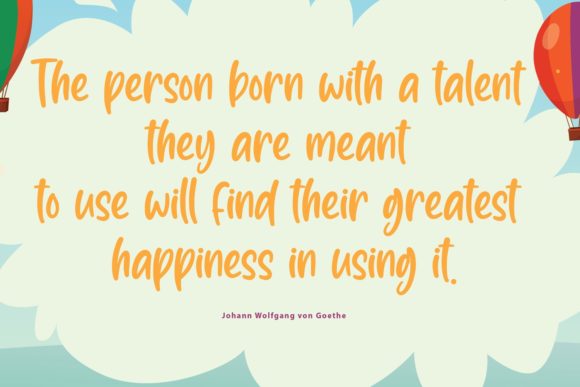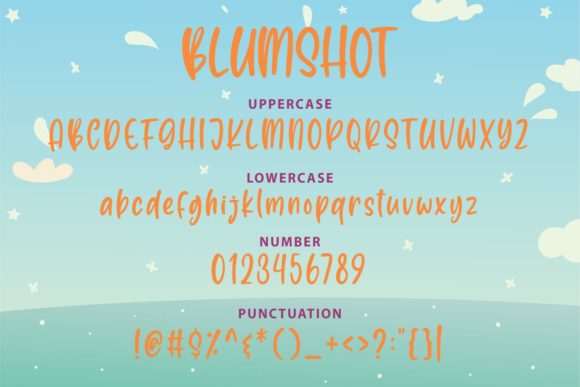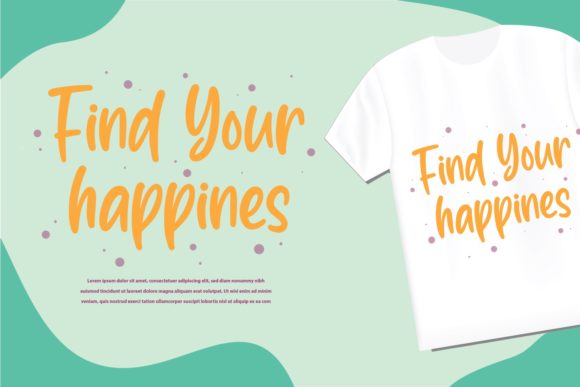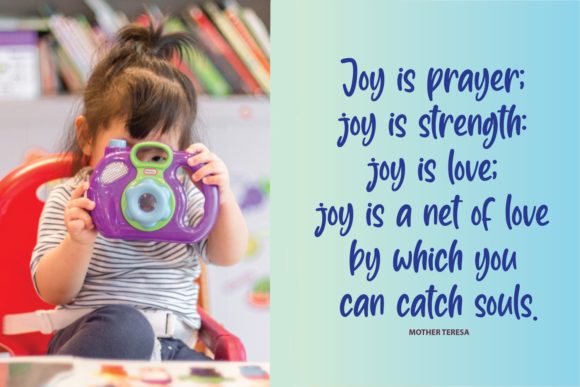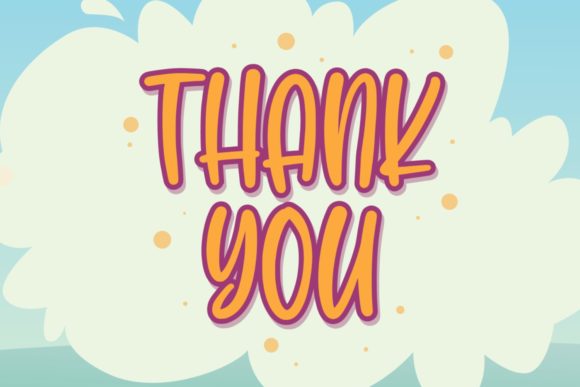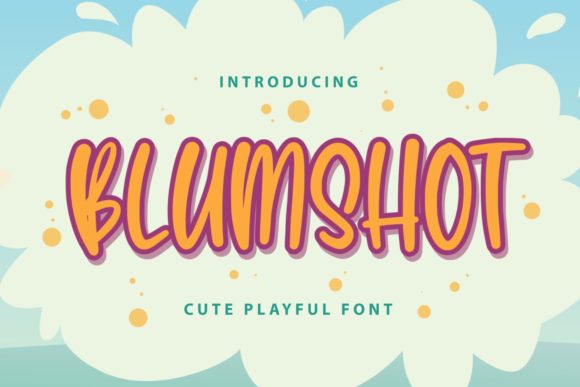
Introducing Blumshot Font: The Ultimate Friendly Handwritten Font
Are you tired of using the same old fonts for your designs? Look no further! Blumshot Font is here to revolutionize your creative projects with its incredibly friendly and casual handwritten style. This adorable font is perfect for designers, crafters, and anyone looking to add a personal touch to their work.
What Makes Blumshot Font So Special?
Blumshot Font boasts a unique and charming handwritten style that exudes warmth and friendliness. Its casual and approachable feel makes it an ideal choice for a wide range of projects, from logos and branding to social media graphics, invitations, quotes, and more. Whether you’re a professional designer or a crafty DIY enthusiast, Blumshot Font is sure to become your go-to font for all your creative endeavors.
Blumshot Font’s versatility knows no bounds. Here are some of the many design projects where this font shines:
- Logos and Branding: Create a memorable brand identity with Blumshot Font’s friendly and approachable style.
- Social Media Graphics: Add a personal touch to your social media posts, stories, and profiles with this adorable font.
- Invitations: Make your invitations stand out with Blumshot Font’s charming and handwritten style.
- Quotes and Typography: Use Blumshot Font to create inspiring and visually appealing quotes, posters, and typography art.
- Stationery: Add a touch of warmth and personality to your stationery, journals, and planners with this lovely font.
- Crafty DIY Projects: Perfect for crafters, Blumshot Font is ideal for handmade cards, gift tags, and other DIY projects.
Why Choose Blumshot Font?
With so many fonts available, why choose Blumshot Font? Here are just a few reasons:
- Unique and Eye-catching: Blumshot Font’s handwritten style is sure to grab attention and set your designs apart.
- Easy to Read: Despite its casual style, Blumshot Font is incredibly legible, making it perfect for body text and longer content.
- Highly Versatile: Use Blumshot Font for a wide range of projects, from digital designs to print materials.
- Incredibly Friendly: The font’s friendly feel makes it perfect for designs that require a personal touch.
Tips for Using Blumshot Font
To get the most out of Blumshot Font, here are some tips:
- Experiment with Colors: Blumshot Font looks great in a variety of colors, so don’t be afraid to experiment and find the perfect hue for your design.
- Mix and Match: Combine Blumshot Font with other fonts to create a unique and visually appealing typography style.
- Pay Attention to Spacing: Make sure to adjust the spacing between letters and words to ensure your text is easy to read and visually appealing.